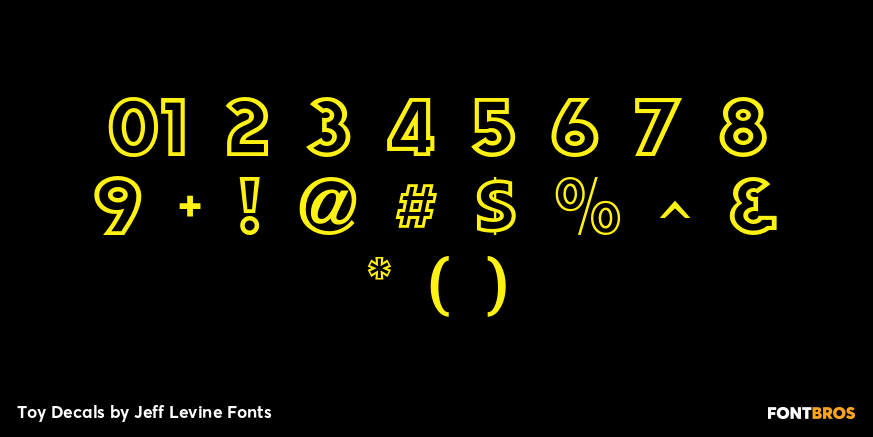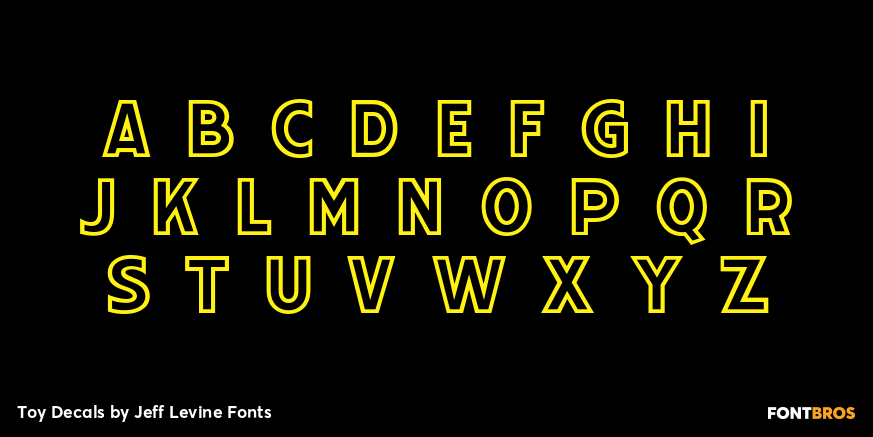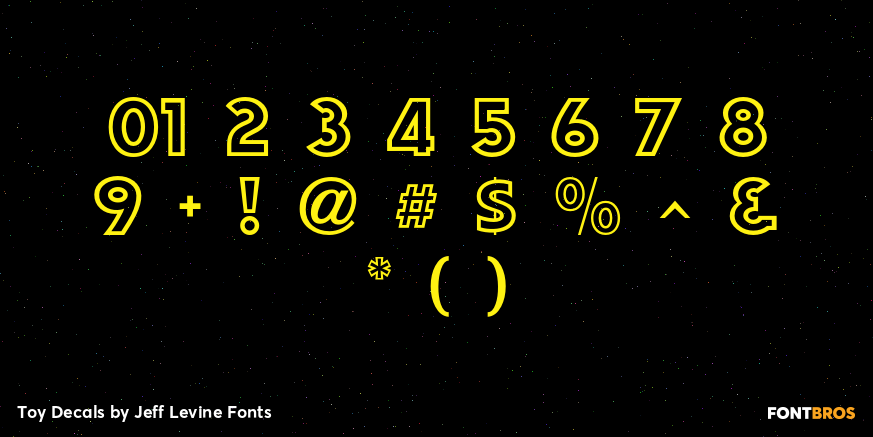
Toy Decals
During the 1940s, Pep cereal [a long-discontinued Kellogg's brand] offered a series of water-applied decals within its boxes. Most likely made by the Meyercord Company (one of America's largest transfer decal manufacturers at the time), one decal in particular had an alphabet in gold letters with black outlines.
(One can only presume the marketing strategy was to have kids bug their parents to buy more Pep cereal if the child needed more than one letter of the alphabet for his or her initials!)
Those decal letters have inspired a digital version as the outline character font Toy Decals JNL, which is available in regular oblique, solid and solid oblique styles.